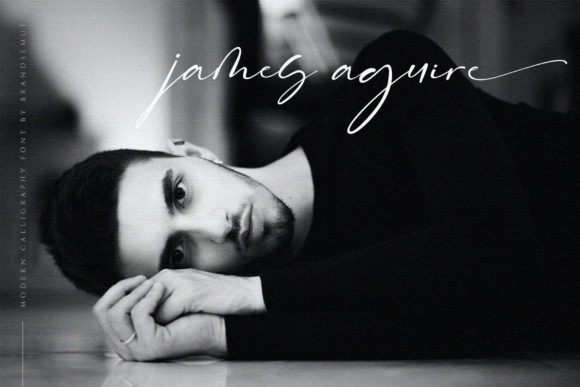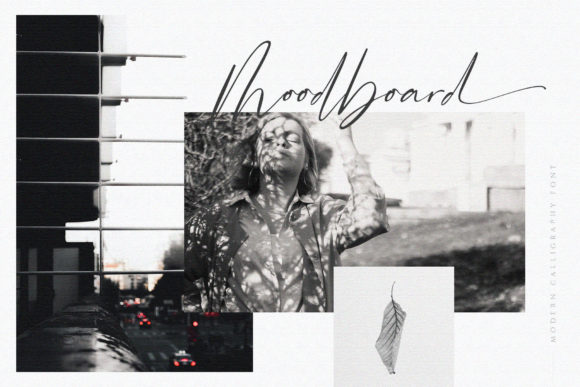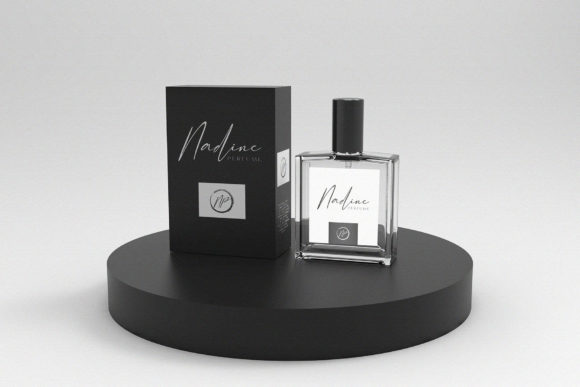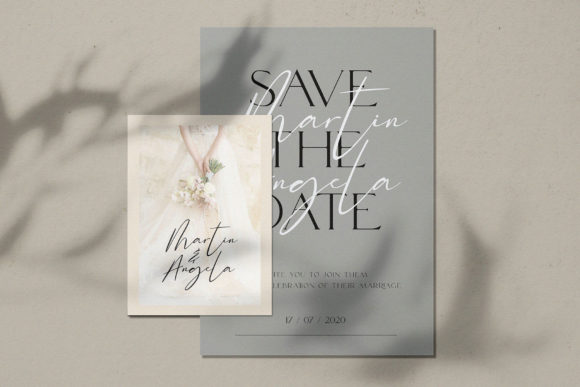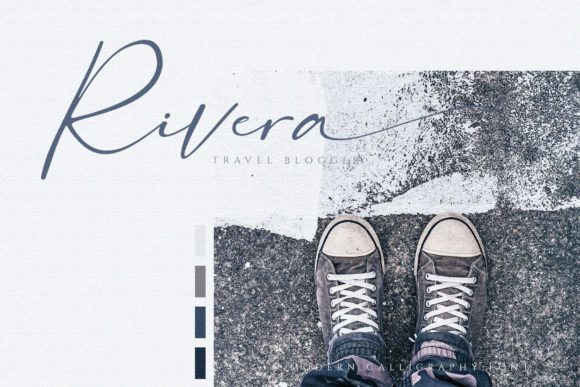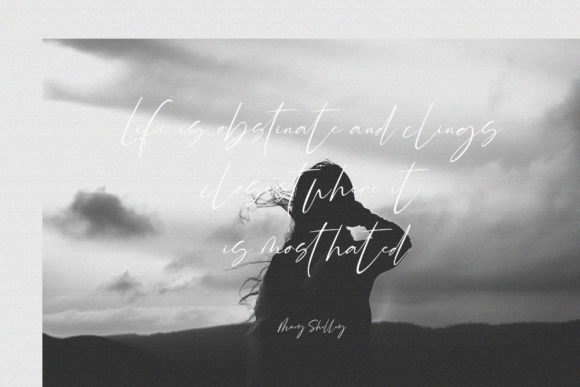
Introduction to Rossie Font
Rossie is a modern calligraphy font.
It features stunning swashes and ligatures Fall in love with its authentic feel and use it to create gorgeous wedding invitations, beautiful stationary art, eye-catching social media posts, and cute greeting cards.